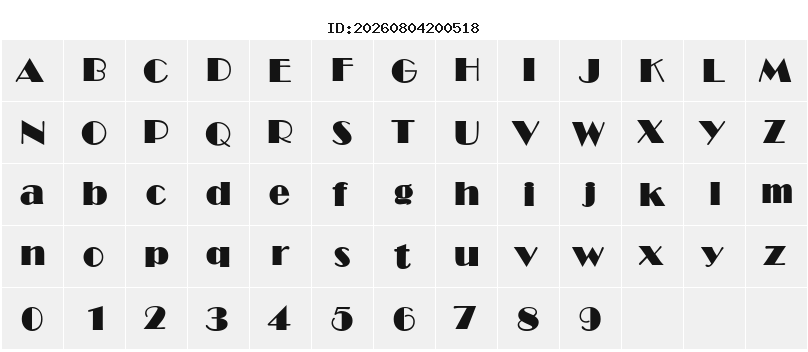
NewYorkDeco Preview
• Font Name: NewYorkDeco
• Font Style: Heavy
• Font ID: SWFTE:NewYorkDeco Heavy
• Full Font Name: NewYorkDeco Heavy
• Version: Rev. 003.000
• PostScript Name: NewYorkDecoHeavySWFTE
• Character Count: 213
About NewYorkDeco.ttf
NewYorkDeco.ttf is a modern, elegant sans-serif font designed for ultimate readability and visual harmony. Perfect for branding, headlines, web design, and print materials.